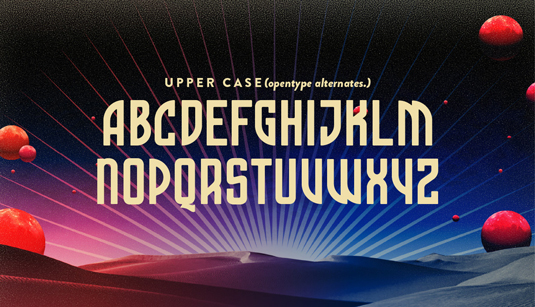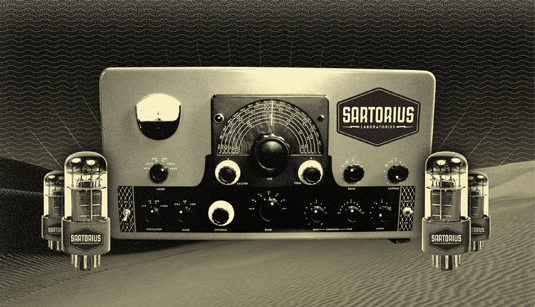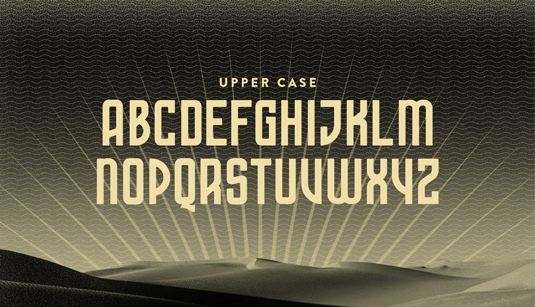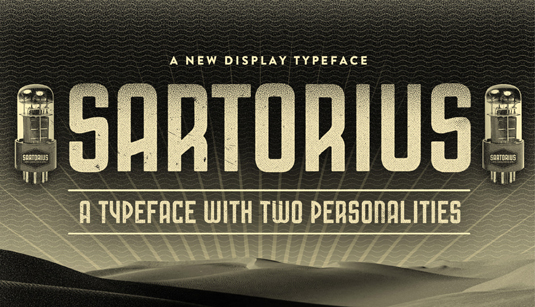
Font of the day: Sartorius
Sartorius by Carl Rylatt
Today's typeface of choice is sci-fi-themed design Sartorius by Carl Rylatt. Available from font foundry Ten Dollar Fonts, it states: 'Sartorius is a new display typeface with two personalities. It features opentype alternates which changes the font from an early 20th century industrial typeface to a more stylised mid 20th century futurist typeface'.